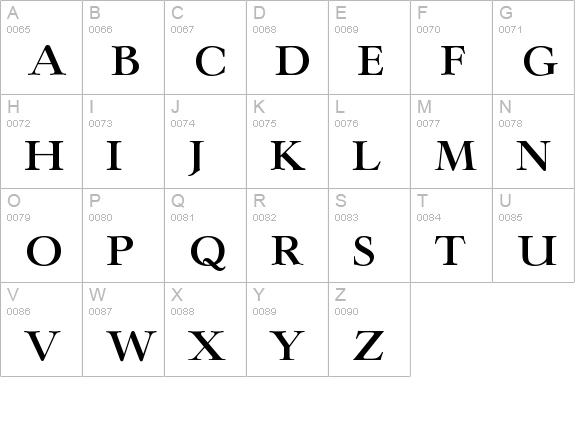
LingwoodSerial-Bold is a strong, high-contrast variant in the LingwoodSerial typeface family \xE2\x80\x94 well suited to headlines, attention-grabbing titles, and strong calls-to-action.
LingwoodSerial-Bold is a striking and versatile font that commands attention with its bold and impactful design. With its strong, clean lines and modern aesthetic, this font is perfect for making a bold statement in any project. Whether you're creating a logo, poster, website design, or any other creative endeavor, LingwoodSerial-Bold is sure to make a lasting impression. Best of all, this font is available for free download at FontsMarket.com. So you can easily add this powerful font to your collection without breaking the bank. Don't miss out on the opportunity to elevate your designs with the eye-catching style of LingwoodSerial-Bold. Download it today and start creating stunning visuals that stand out from the crowd.